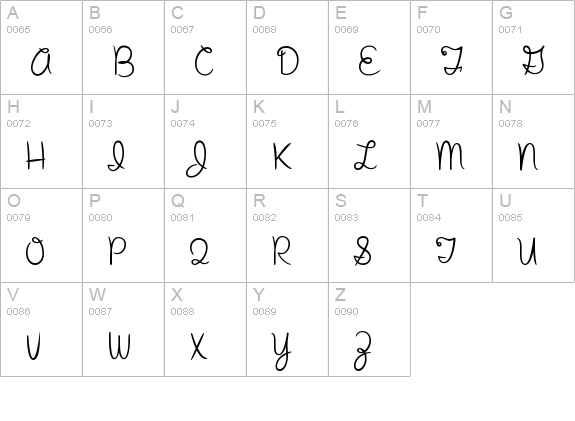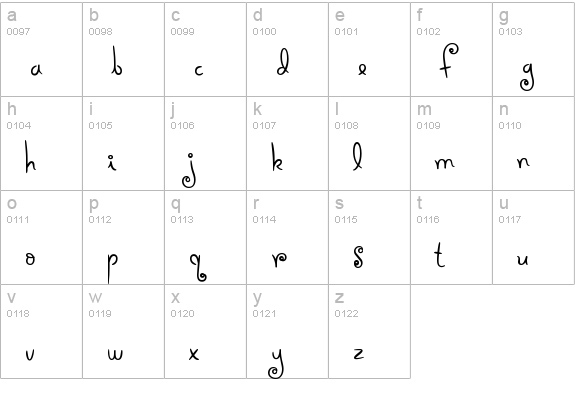
Holiday Springs BTN Quill Font Details
Holiday Springs BTN Quill font is a charming and elegant typeface designed to add a touch of sophistication to your projects. With its delicate strokes and graceful curves, this font exudes a sense of beauty and refinement. Perfect for invitations, greeting cards, and other special occasions, Holiday Springs BTN Quill font will bring a touch of elegance to any design. The best part? This exquisite font is available for free download at FontsMarket.com. So go ahead and elevate your projects with the timeless beauty of Holiday Springs BTN Quill font, without any cost. Download it today and bring a touch of class to your designs.